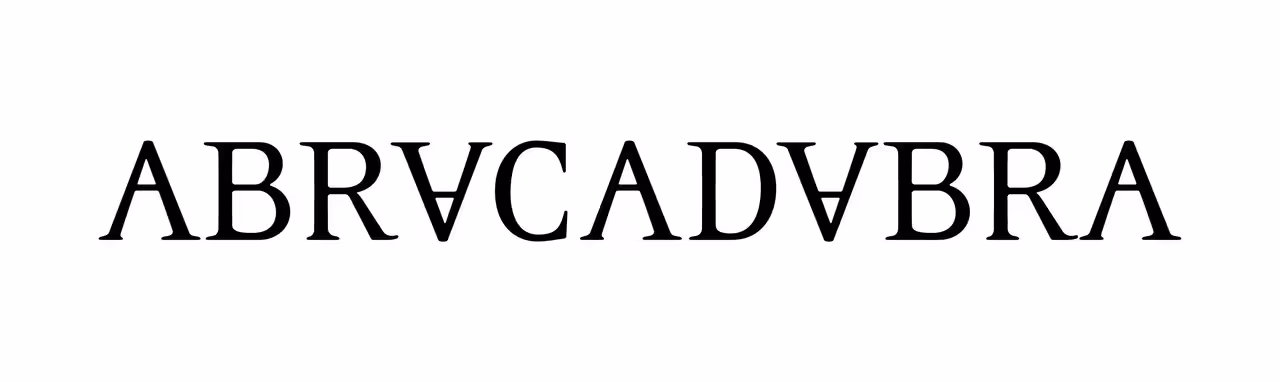
BloodyVelvet 950 Posted February 5, 2025 Share Posted February 5, 2025 Does anyone know where I could find the “Lady Gaga” Mayhem font ? I’m talking about the Lady Gaga with reverse As and not the font of “Mayhem” if that makes sense. ABRⱯCADⱯBRA Link to post Share on other sites More sharing options...
The Fame Monster 4,554 Posted February 5, 2025 Share Posted February 5, 2025 Do you mean this? Find your freedom in the music Link to post Share on other sites More sharing options...
NUTELLA 31,810 Posted February 5, 2025 Share Posted February 5, 2025 1 minute ago, The Fame Monster said: Do you mean this? I think he means one of these "LADY GAGA" fonts (but I don't know what either is called, sorry) Link to post Share on other sites More sharing options...
BloodyVelvet 950 Posted February 5, 2025 Author Share Posted February 5, 2025 8 minutes ago, NUTELLA said: I think he means one of these "LADY GAGA" fonts (but I don't know what either is called, sorry) Yes this but even the one from the album which is more neutral than this one! ABRⱯCADⱯBRA Link to post Share on other sites More sharing options...
Gaijin 444 Posted February 5, 2025 Share Posted February 5, 2025 The graphic designer in me says this is an Adobe Font (Omni… something, the name escapes me atm, but I know I have it) which had its character table modified to invert the As. Let me see if I can isolate it and do the thing. Can attach later perhaps. 珈琲ちょうだい Link to post Share on other sites More sharing options...
The Fame Monster 4,554 Posted February 5, 2025 Share Posted February 5, 2025 2 minutes ago, Gaijin said: The graphic designer in me says this is an Adobe Font (Omni… something, the name escapes me atm, but I know I have it) which had its character table modified to invert the As. Let me see if I can isolate it and do the thing. Can attach later perhaps. Yep! From Adobe Fonts, the most similar font to the Lady Gaga font is "Eidetic Neo OT Omni". It's not the same but it has many similarities. I couldn't find any other more similar than this. Find your freedom in the music Link to post Share on other sites More sharing options...
gustavv 181 Posted February 5, 2025 Share Posted February 5, 2025 I think it's a custom font based on Eidetic Neo Link to post Share on other sites More sharing options...
Juanlittlem 49,763 Posted February 5, 2025 Share Posted February 5, 2025 3 minutes ago, Gaijin said: The graphic designer in me says this is an Adobe Font (Omni… something, the name escapes me atm, but I know I have it) which had its character table modified to invert the As. Let me see if I can isolate it and do the thing. Can attach later perhaps. It's EideticNeo-Omni with the As inverted I think? Estàvem al cel, ara estem a l'infern Link to post Share on other sites More sharing options...
The Fame Monster 4,554 Posted February 5, 2025 Share Posted February 5, 2025 In Gaga's font, the crossbar of the letter A is more higher than in Eidetic Neo OT Omni. Find your freedom in the music Link to post Share on other sites More sharing options...
Ceres 3,376 Posted February 5, 2025 Share Posted February 5, 2025 Bouncing off of this— If Eidetic Neo OT Omni is close enough to LADY GAGA, what font is the subtext "LG7 album out 03. 07. 2025" is mayhem its own custom font you think? I ended up using the Chromatica subtext on a project and sold it in as "the gaga font" lol ✧ ✧ ✧ Link to post Share on other sites More sharing options...
BloodyVelvet 950 Posted February 5, 2025 Author Share Posted February 5, 2025 Throwing a bottle in the ocean but is there anyone in here capable of writing ‘ABRⱯCADⱯBRA’ in that same font with reversed A and crossbar higher? ABRⱯCADⱯBRA Link to post Share on other sites More sharing options...
jakob 6,049 Posted February 5, 2025 Share Posted February 5, 2025 43 minutes ago, Ceres said: Bouncing off of this— If Eidetic Neo OT Omni is close enough to LADY GAGA, what font is the subtext "LG7 album out 03. 07. 2025" is mayhem its own custom font you think? I ended up using the Chromatica subtext on a project and sold it in as "the gaga font" lol the subtext font is F2F OCR Bczyk and Mayhem logo is custom Link to post Share on other sites More sharing options...
gustavv 181 Posted February 5, 2025 Share Posted February 5, 2025 1 hour ago, RBL said: Throwing a bottle in the ocean but is there anyone in here capable of writing ‘ABRⱯCADⱯBRA’ in that same font with reversed A and crossbar higher? Like this? Link to post Share on other sites More sharing options...
Gaijin 444 Posted February 5, 2025 Share Posted February 5, 2025 3 hours ago, Juanlittlem said: It's EideticNeo-Omni with the As inverted I think? YES 珈琲ちょうだい Link to post Share on other sites More sharing options...